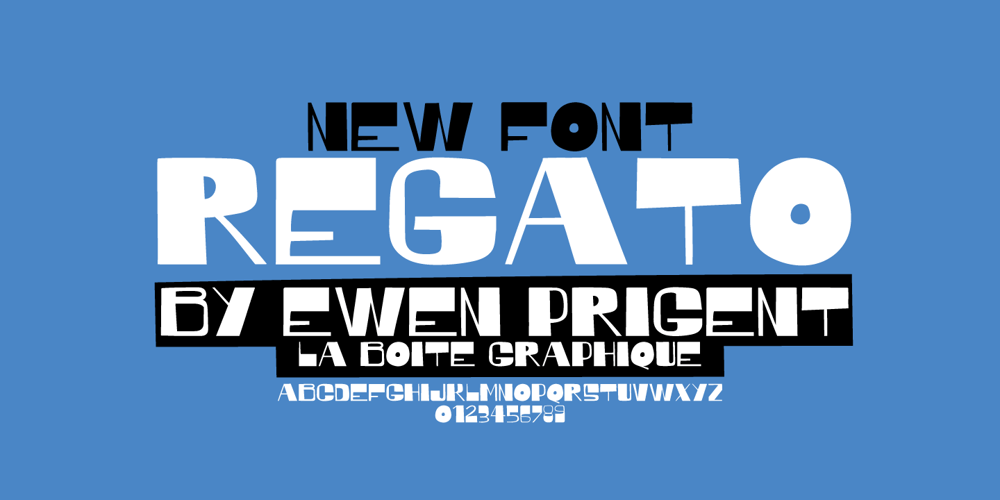
Regato
Regato font
Regato Font Family was designed by Ewen Prigent and published by La Boîte Graphique. Regato contains 1 styles and family package options. Regato is a hand made font ideal for your graphic project. Usage recommendations : Title, short text, children’s book, poster, book cover, brochure, label, magazine